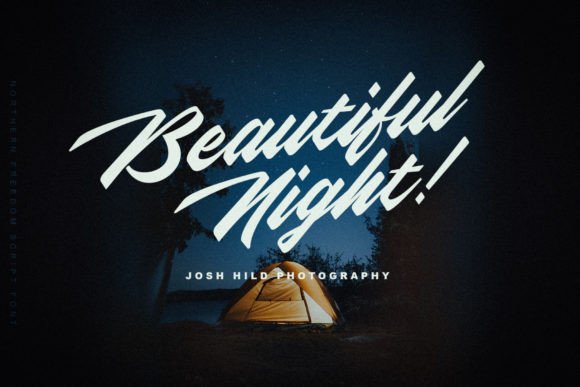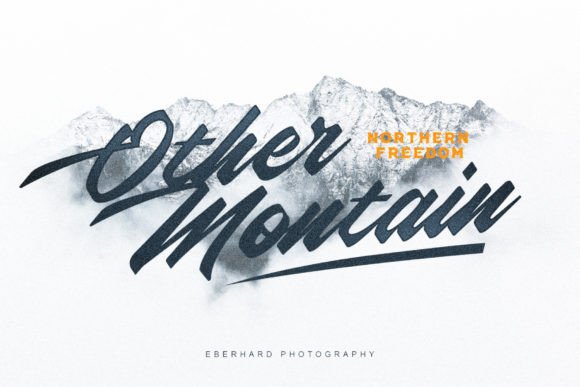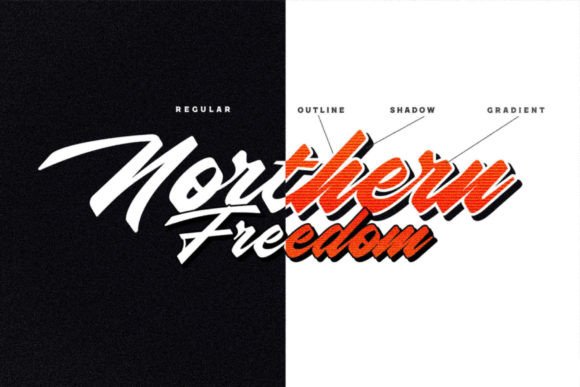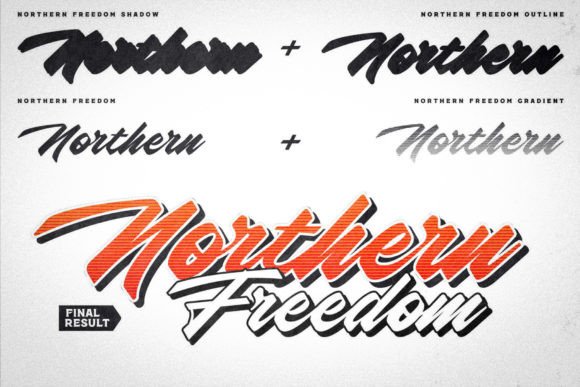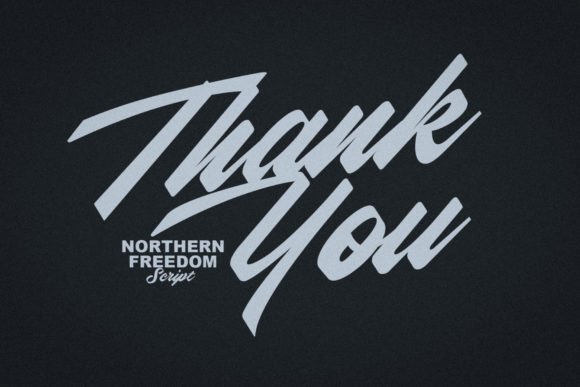
Northern Freedom Font
About Northern Freedom Font
Northern Freedom is a contemporary script font designed to illuminate your creative projects. With this font, the possibilities for combinations are endless, providing a canvas for your creativity to flow freely. Embrace the modern and dynamic aesthetic of Northern Freedom to elevate your designs and make them stand out.
This font offers a versatile and stylish foundation for a wide range of creative applications. Whether you’re working on branding, advertising, product packaging, or any other design project, Northern Freedom brings a fresh and modern touch to your work. Its sleek script style allows for a harmonious blend of letters, enabling you to experiment with various combinations to achieve the desired visual impact.
Unleash your imagination and explore the diverse ways in which Northern Freedom can enhance your creative expressions. From professional endeavors like logo design and brand identity to personal projects such as invitations and artwork, this font provides the flexibility needed to bring your ideas to life.
Let the modern elegance of Northern Freedom become an integral part of your design toolkit, empowering you to create visually compelling and contemporary pieces. Its adaptability makes it suitable for a variety of contexts, allowing you to customize and experiment until you achieve the perfect aesthetic for your project.
Incorporate Northern Freedom into your designs and witness how it adds a touch of modern sophistication, breathing new life into your creative endeavors. With this font, your projects are sure to shine with a contemporary and stylish allure.